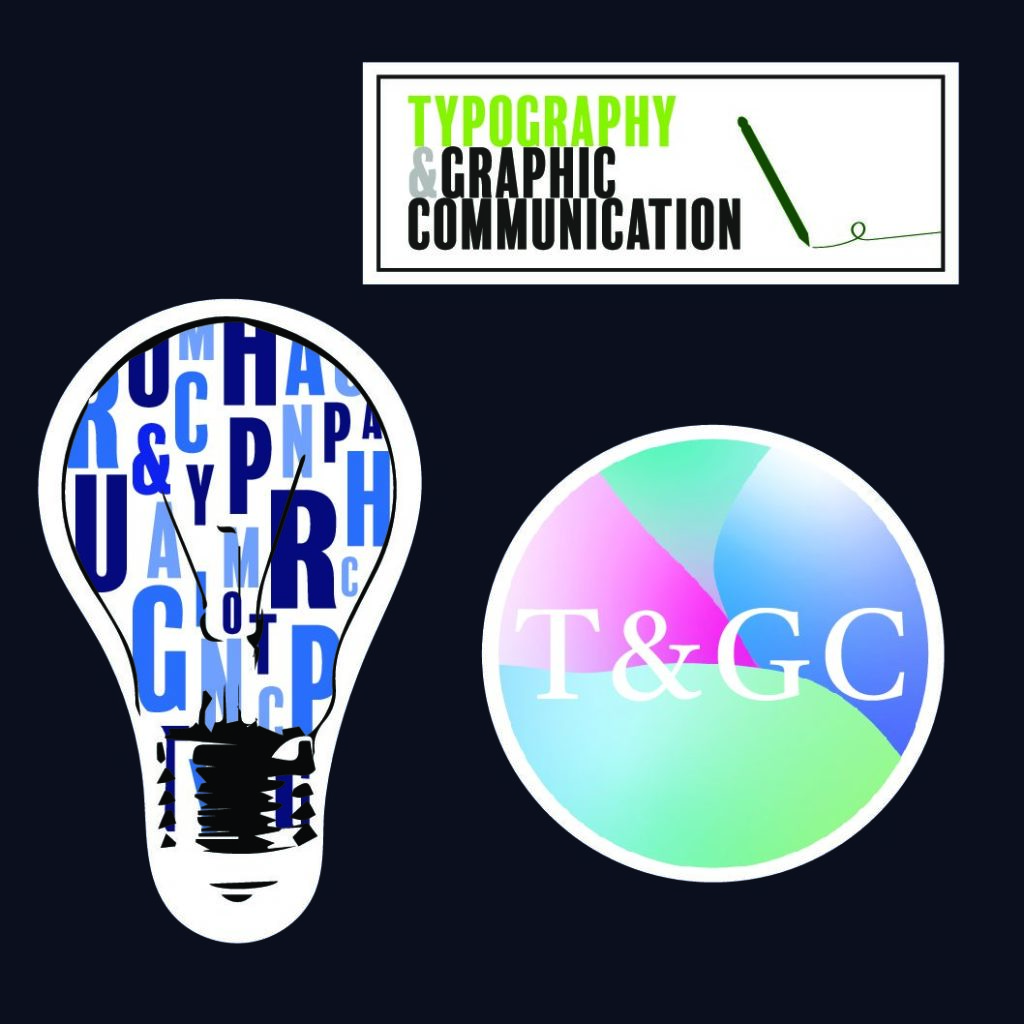
Design ideas and design process
Idea 1: For my first design I decided to use a lightbulb to show the generation of ideas by graphic designers, as that is most likely the podcast’s target audience. I knew that I wanted to include letters or type of some sort as the podcast talks about type. I began by typing out letters, converting them to outlines and then trying to warp the letters into a lightbulb shape. I didn’t think this was very successful as the letters looked awkwardly squashed and the amount of white space was too much for the lightbulb shape to be clear enough.
I then tried drawing the shape of the lightbulb with the pen tool and using it creating a layer mask with it. This worked but I still didn’t think the shape was clear enough, so I image traced and then expanded a photo of a light bulb so that I could place this over the top. I then went in with the white arrow tool to clean some stray points up.
This is my favourite design as I think it represents the content of the podcast well without spelling it out, and when seen from far away still works.
Idea 2: For idea 2 I wanted to try a simpler design based on type. I typed out ‘Typography and Graphic Communication’ and then experimented with typefaces, leading and tracking. I reduced the leading quite significantly to make the text appear as one unit and because it allows the text to be bigger within the same dimensions. I changed the colour of ‘typography’ so that the words could be differentiated. I then experimented with different compositions of the pen using the transform tool, but I settled with just one pen drawing a line as it was the clearest and allowed for a fair amount of white space, stopping the sticker looking crowded.
Idea 3: I decided to go for the classic circle shape for this sticker. Using the pen tool I created some organic shapes and filled them with the freeform gradient for a bright and almost 3D effect. I used the layer mask to cut a circle out of it and then experimented with various typefaces for the ‘T&GC’. I went with a simple serif typeface in the end, so that it is easy to read and brings a touch of classiness to the sticker – sans serif looked more basic and since the other designs are sans serif I thought it would add some variation to my designs.
I had used Illustrator a fair bit before so I knew the basics but I wanted to explore the dropdown menus further. I read a tutorial on how to create icons, from which I learnt how to use the ‘Effect > Distort and transform > Transform’ function. I tried this out on Design Two, and although it didn’t make the final design I think I will find this tool very useful in the future, particularly for creating circles made up of icons. I also used the dropdown menus to outline strokes and to lock and unlock objects, for which I have now learnt the keyboard shortcuts.
Resources for research and inspiration
Firstly, I looked at some sticker designs on Google to get a feel for proportions and the sort of images used. A common factor was that they used colour and large text where it needed to be readable; circles also seemed to be a popular choice when it came to shape.
I had a flick through Behance to gather some inspiration on typefaces, colour schemes and how to layout different elements, for example after looking at one of the articles I knew I wanted to make use of white space, which I did in Design 2. I was then looking at my boards and decided to have another look at Vasjen Katro’s work, a designer I really like (http://shop.baugasm.com). This is where I got the idea for the freeform gradients as he uses a lot of fresh 3D effects which look similar, with bright/pastel colour schemes.
A topic I would like to explore further is effects on type – for example text looking worn or ripped or textured. I think this is probably a job for Photoshop, after the text has been made in Illustrator. Typography is my main interest and this would add another element to my stickers and would allow me to create stickers that are purely typography with effect over it – I felt that my other stickers were too boring without some sort of illustration as well. On my Google search I saw some that used just type with an effect on it and I thought they were very effective designs, so I will look into how this is done.